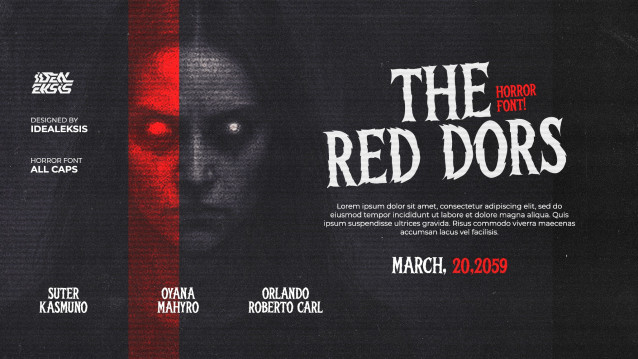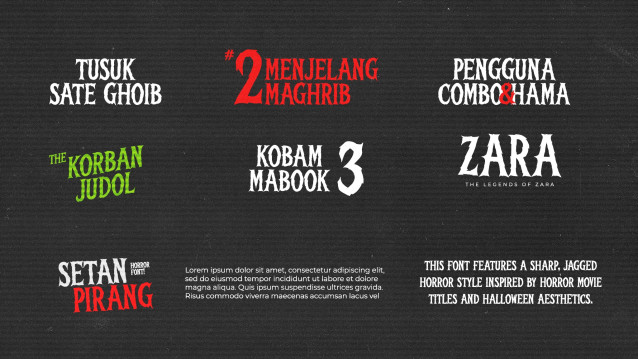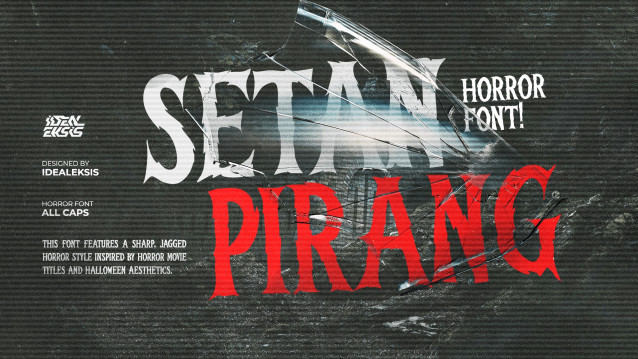
Setan Pirang Font
Setan Pirang Font is a font that exudes horror and suspense in its design. This chilling typeface seamlessly blends elements of fear and mystery, making it the perfect choice for projects that want to evoke a sense of gloom and foreboding. The letters are meticulously crafted with jagged edges, irregular strokes, and unsettling angles, all contributing to the overall unsettling feel.